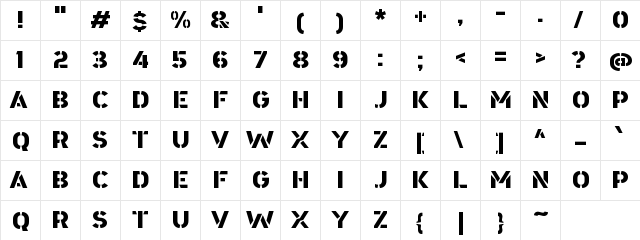
a Area Stencil Regular
Design Context for a Area Stencil Typeface
a Area Stencil borrows the utilitarian aesthetic of stencil lettering, with its characteristic cutaways and no-frills construction lending an industrial edge.
A strong choice for packaging that needs edge, warehouse aesthetics, and rough-and-ready visual identities.
Pro Tip: Use a Area Stencil at large sizes on packaging, posters, or apparel where the stencil cutaways read clearly. Avoid small sizes where those gaps become visual noise.